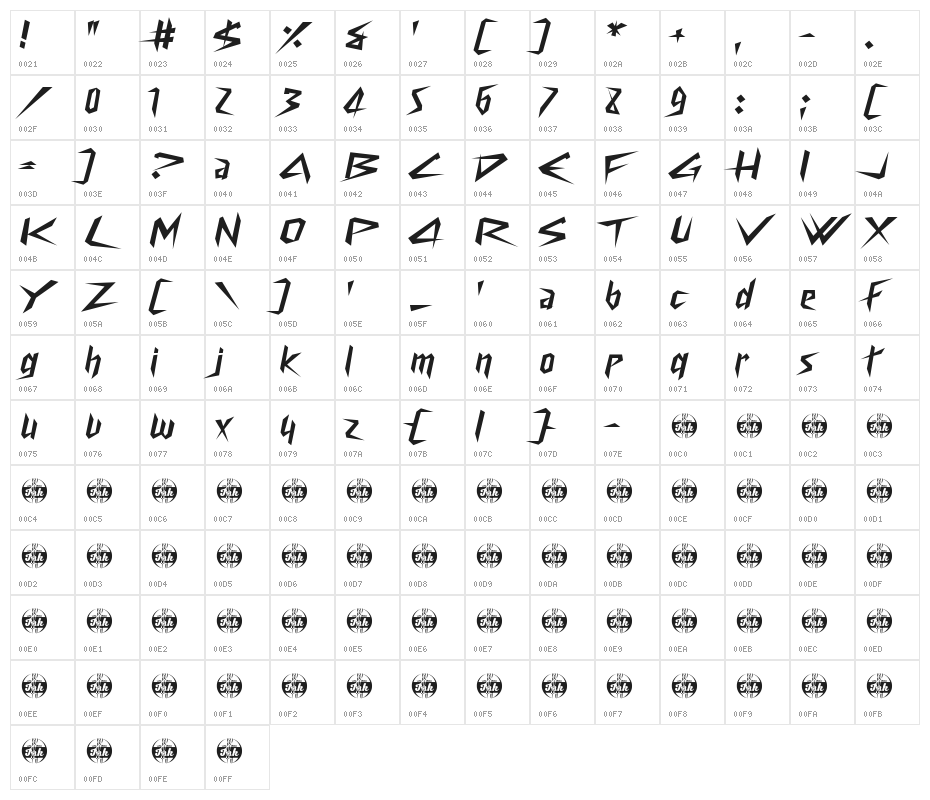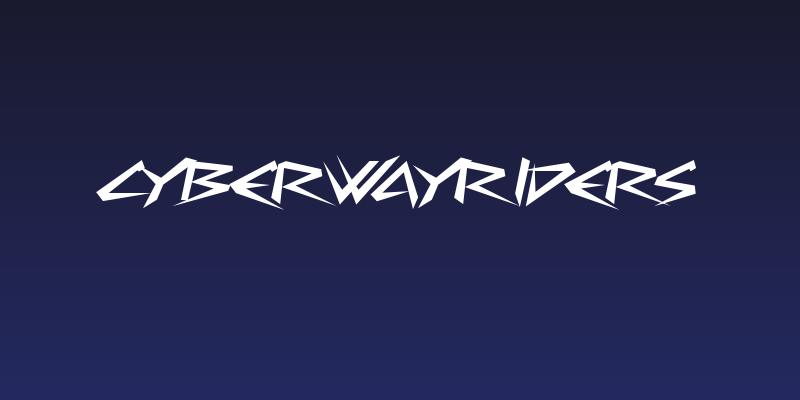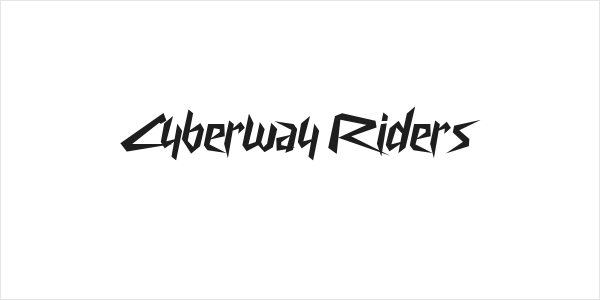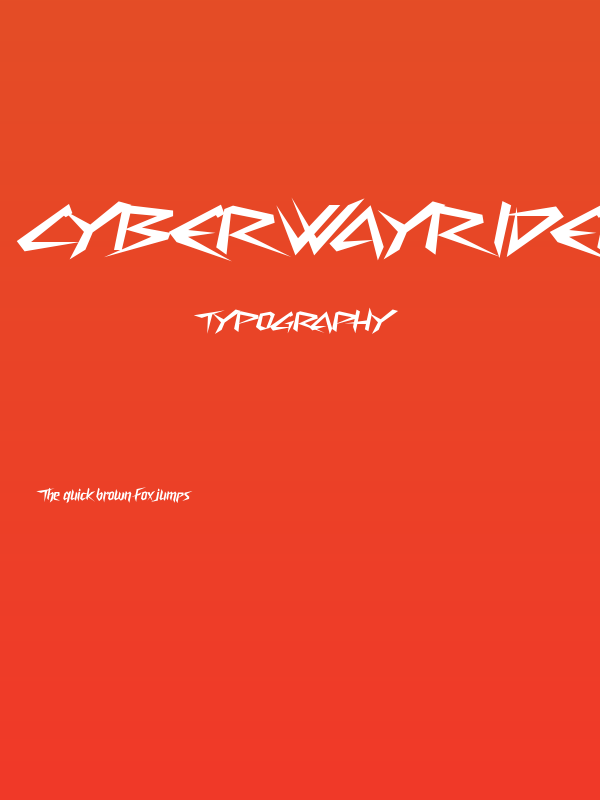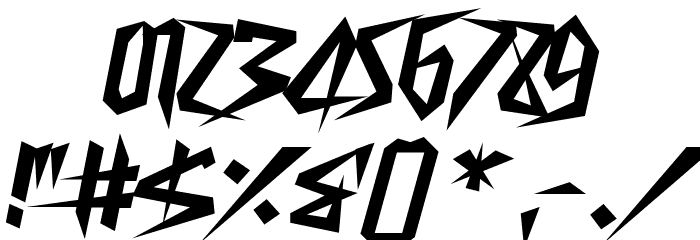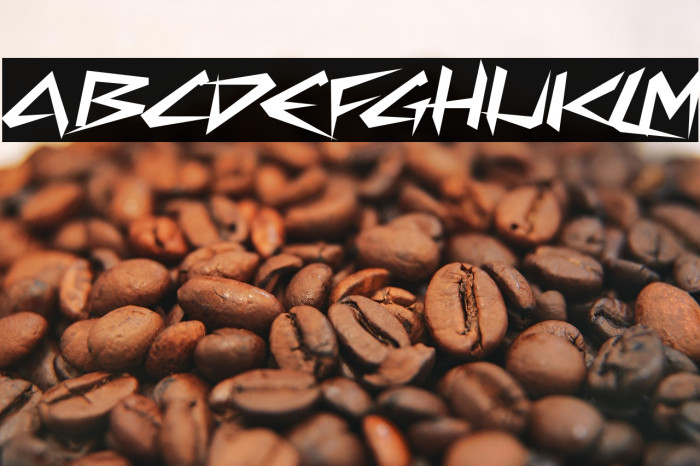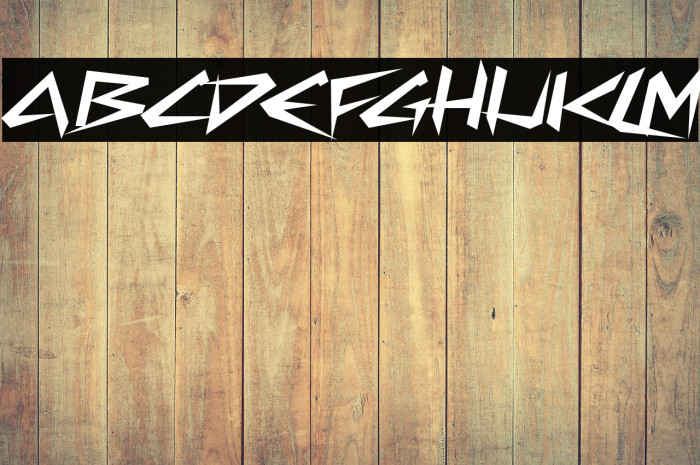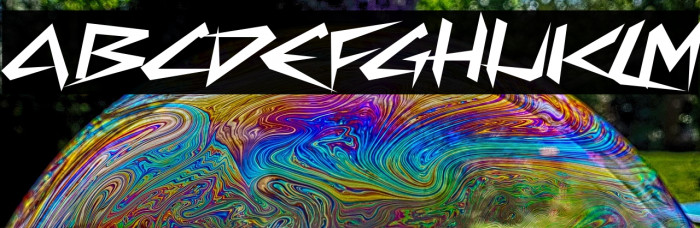
Cyberway Riders Font
Cyberway Riders Description
This font features a bold, angular design with sharp edges and dynamic lines, creating a sense of movement and energy. The characters are highly stylized, with exaggerated points and a futuristic aesthetic. The uppercase and lowercase letters maintain a consistent style, while the numbers and special characters integrate seamlessly into the overall design. This font's aggressive and edgy appearance makes it ideal for projects that require a strong visual impact.
| Overall Style | Modern, Futuristic |
| Proposed Projects | Ideal for video game titles, movie posters, branding for extreme sports, and any project needing a dynamic and edgy look. |